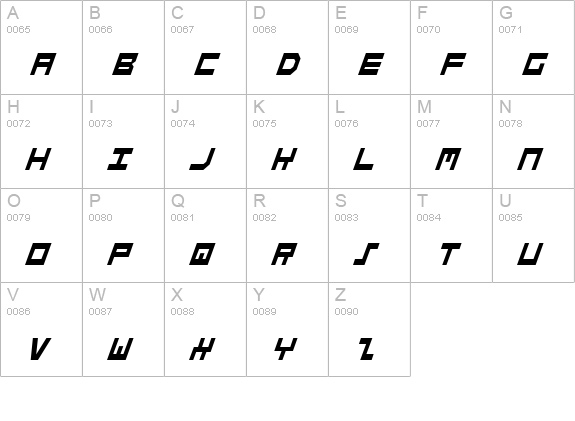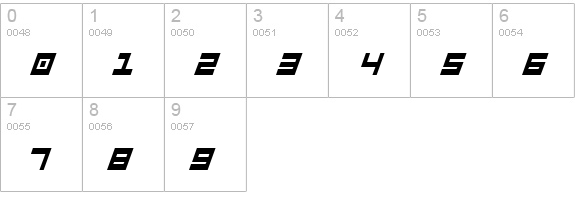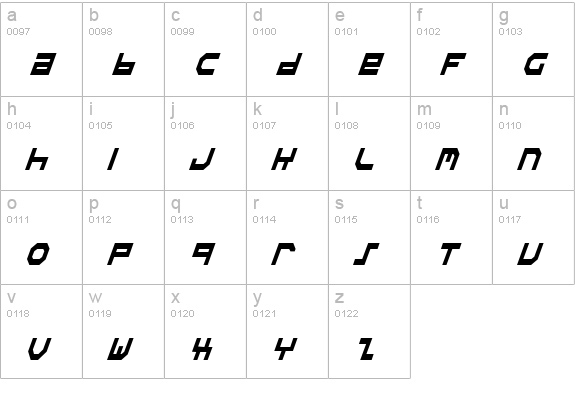
Stuntman Condensed Italic is a distinctive, condensed-width, italic variant in the Stuntman typeface family \xE2\x80\x94 well suited to design and typography projects.
Stuntman Condensed Italic font is a sleek and dynamic typeface that exudes energy and excitement. With its bold slanted design, this font is perfect for adding a touch of drama and flair to any project. Whether you're working on a movie poster, a sports advertisement, or a high-octane website, Stuntman Condensed Italic font will make your text pop and stand out. And the best part? Stuntman Condensed Italic font is completely free to download at FontsMarket.com! So go ahead and grab this versatile and eye-catching font to elevate your designs and captivate your audience.